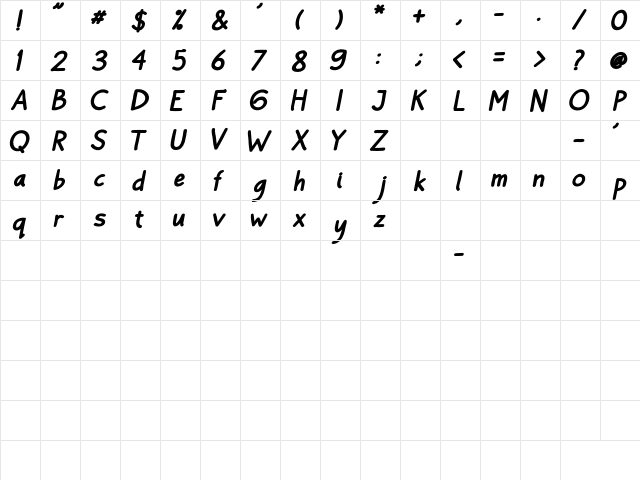
Design Context for Bayu Prahara 2 Bold
Bayu Prahara 2 Bold is a composed and adaptable typeface that performs quietly and consistently across a wide range of design contexts. The slanted form adds forward momentum and visual energy. Its bold stroke weight gives it real presence on the page.
Pro Tip: Use Bayu Prahara 2 Bold for emphasis, pull quotes, and subheadings where its slanted energy can add rhythm to the layout.